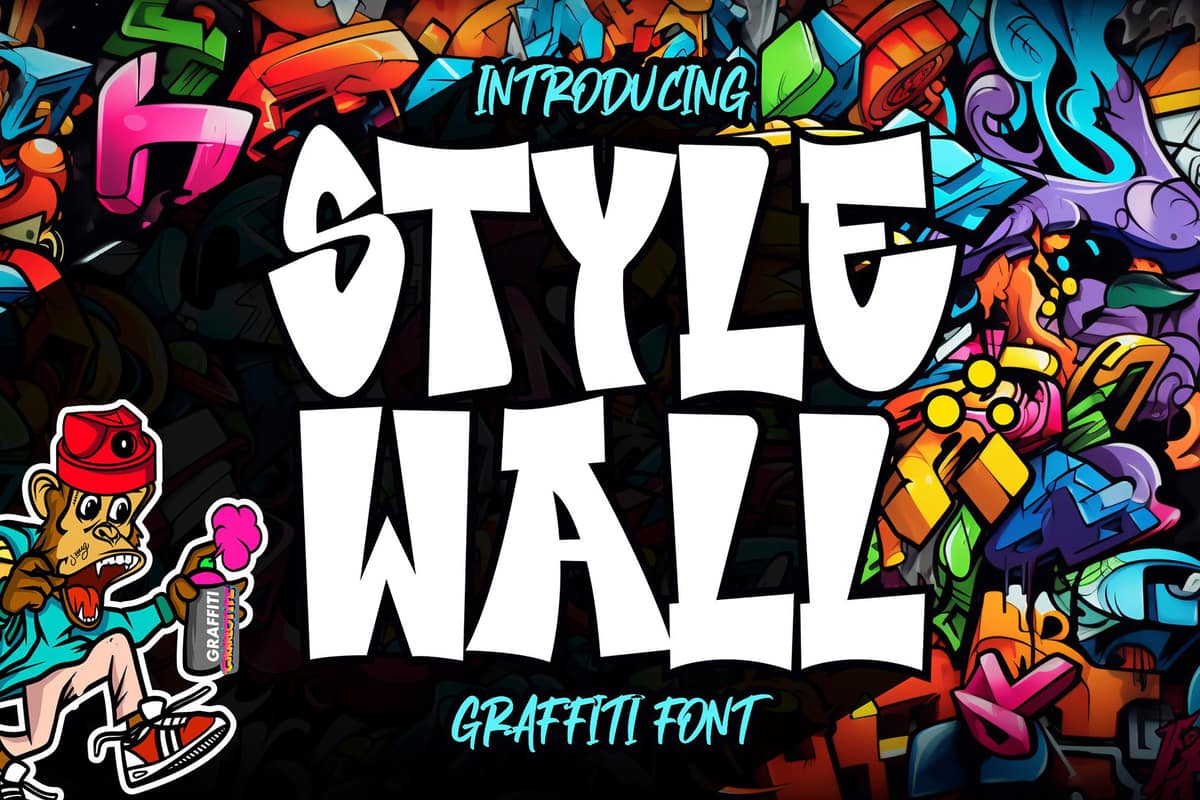
Style Wall
Style Wall is an energetic and bold urban graffiti font that embodies the raw spirit of street art. With its powerful strokes and dynamic letterforms, this font transforms your designs into a vibrant canvas of urban expression.